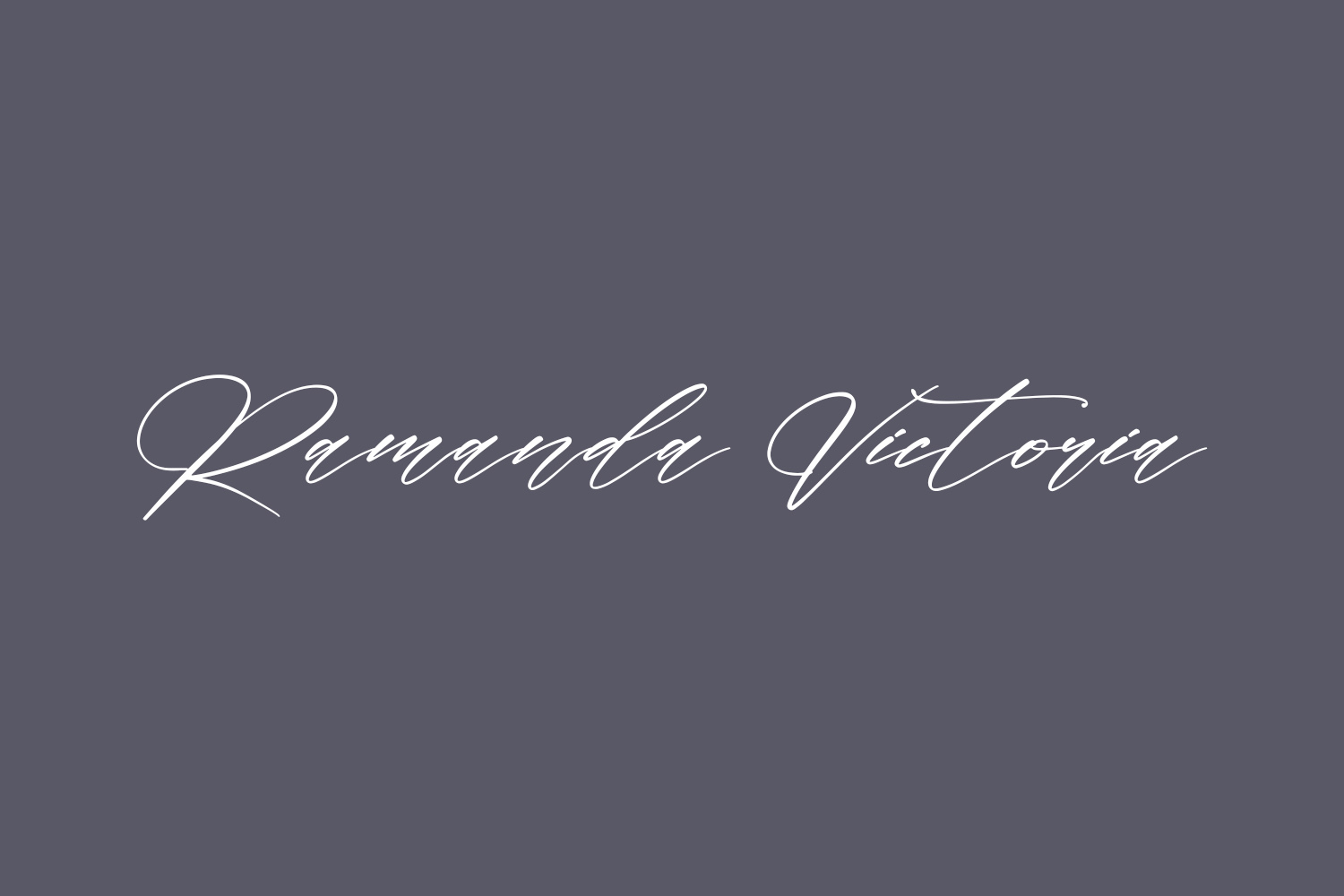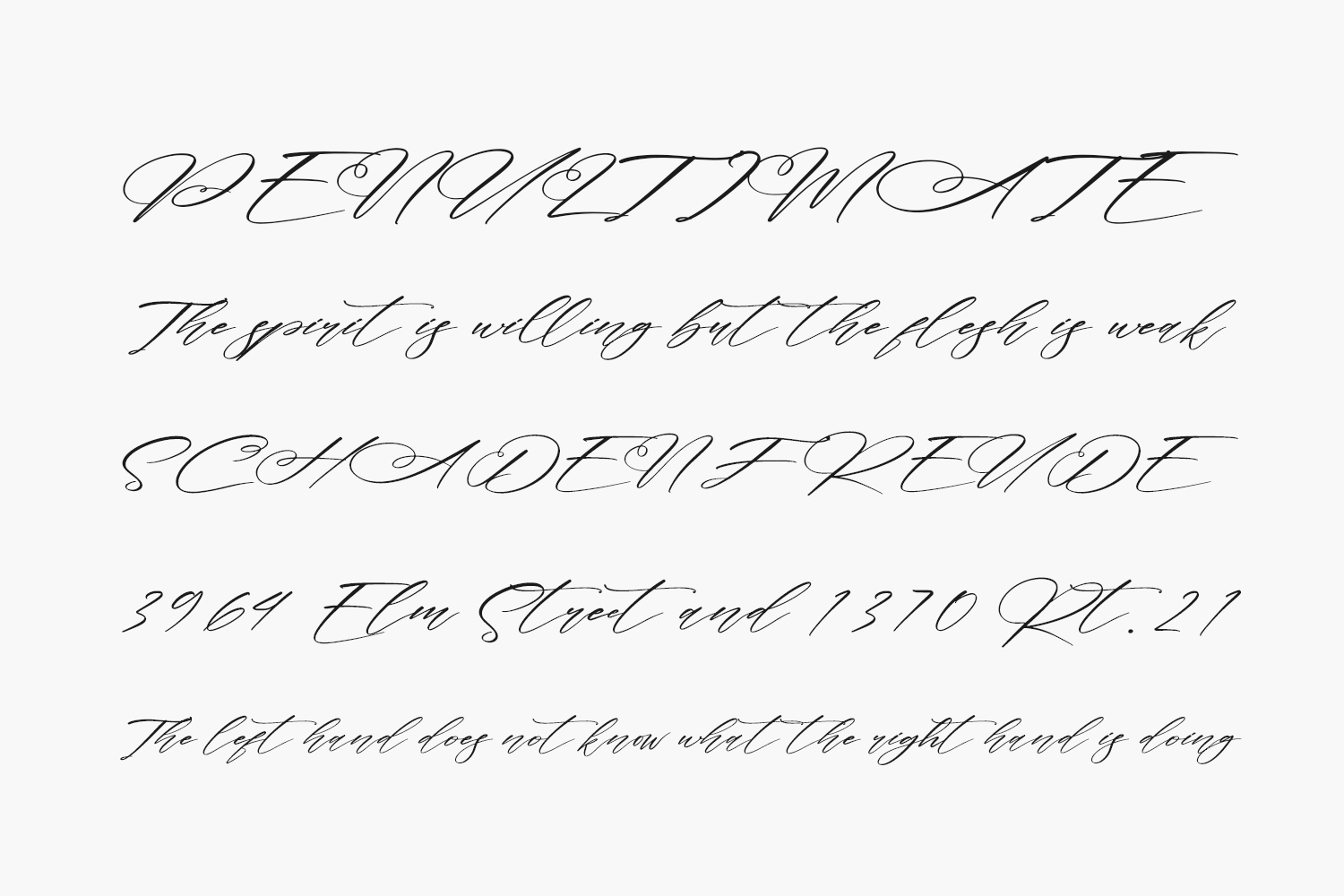
Ramanda Victoria Free Font is a chic, stylish script font that emanates sophistication and versatility. Its luxurious alternates and ligatures make this font the perfect match for any project. Ramanda Victoria Free Font was designed by Letterena Studios and is free for personal use only. Please purchase the full version for commercial use.